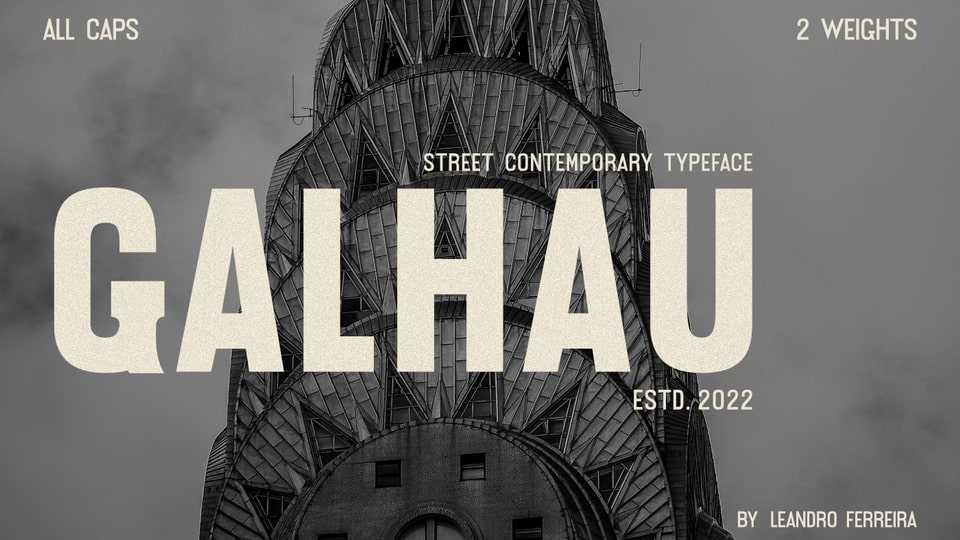
Download Galhau Display font, a street contemporary typeface with two styles. With its bold look Galhau Display is perfect for navigation, posters, web, magazine, editorial, publishing, as well as packaging.